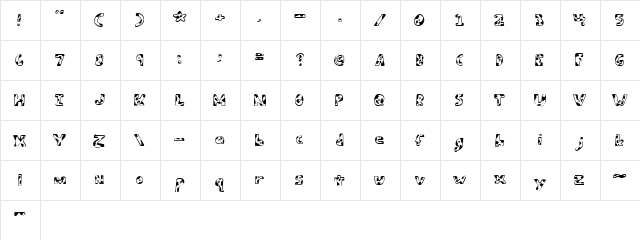
Army Beans Regular
| Foundry | Bionic Type |
| Designer | Swat Kat |
Design Context for Army Beans Typeface
Army Beans draws on military and industrial lettering traditions, with forms that communicate strength and precision.
Designed for tactical branding, military-inspired apparel, action game UI, and utility-focused signage.